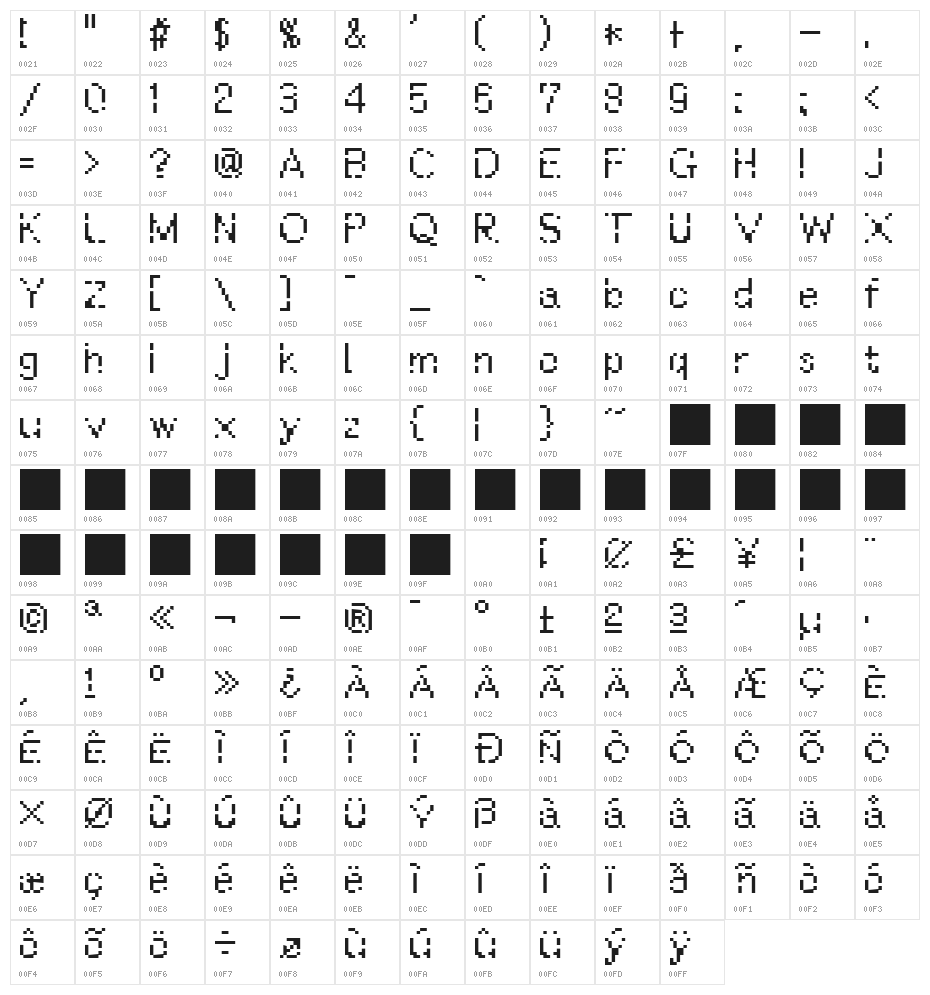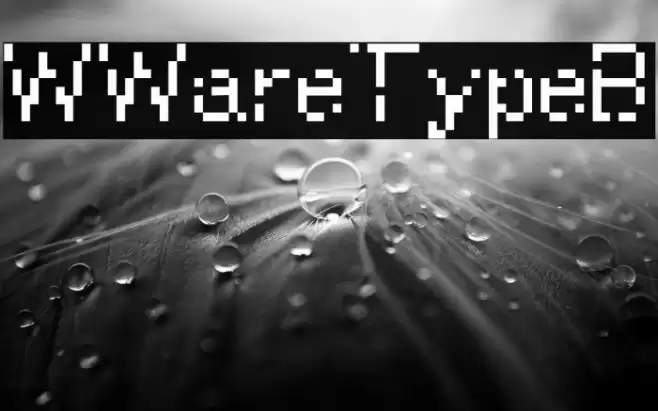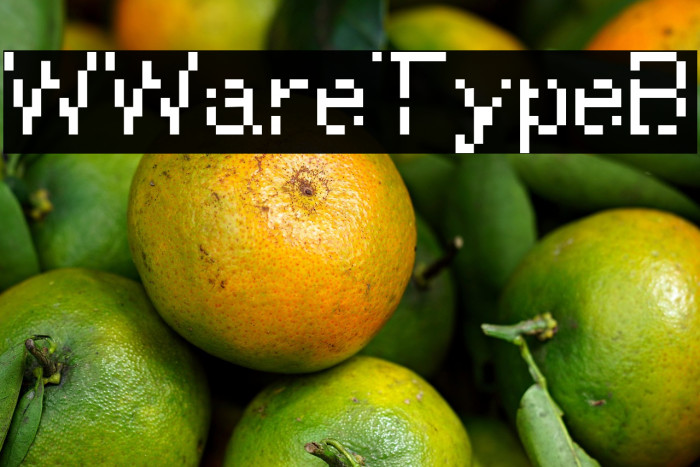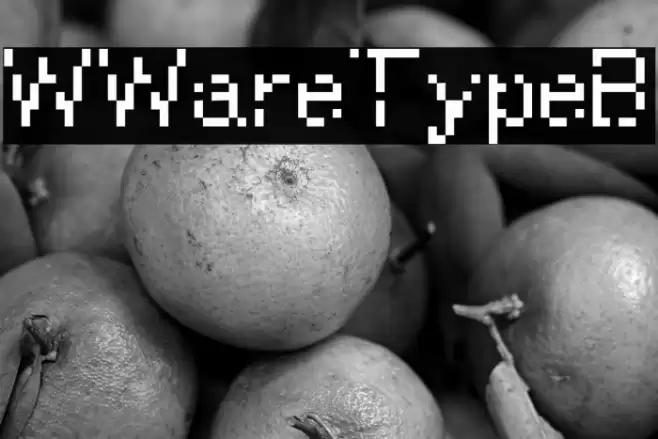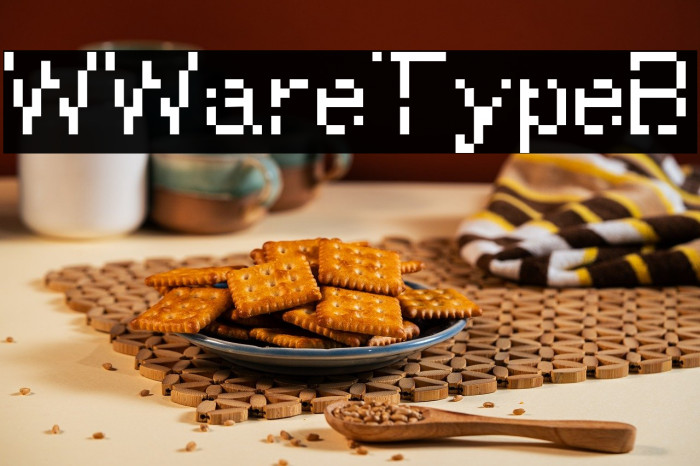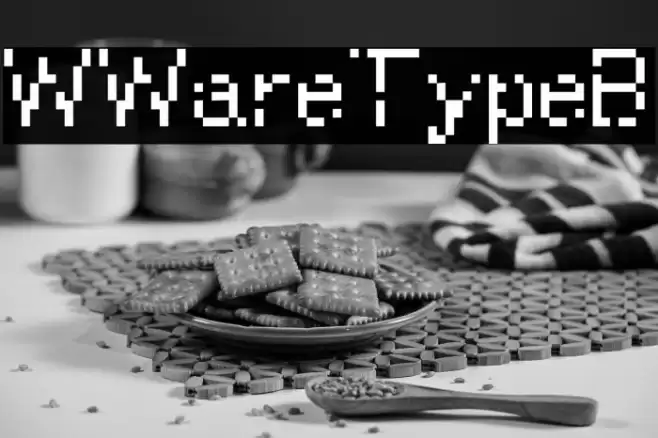
WWareTypeB Font
WWareTypeB Description
This font features a pixelated, blocky style reminiscent of early digital displays and retro video games. Each character is constructed with a grid-like precision, giving it a distinctly digital and technological appearance. The uppercase and lowercase letters maintain a consistent height, contributing to a uniform look. Numbers and special characters follow the same pixelated design, ensuring cohesion across all elements. The font's geometric nature makes it highly legible at larger sizes, while its unique style adds a nostalgic, vintage feel.
| Proposed Projects | Ideal for retro video game graphics, digital-themed posters, and tech-related branding. |